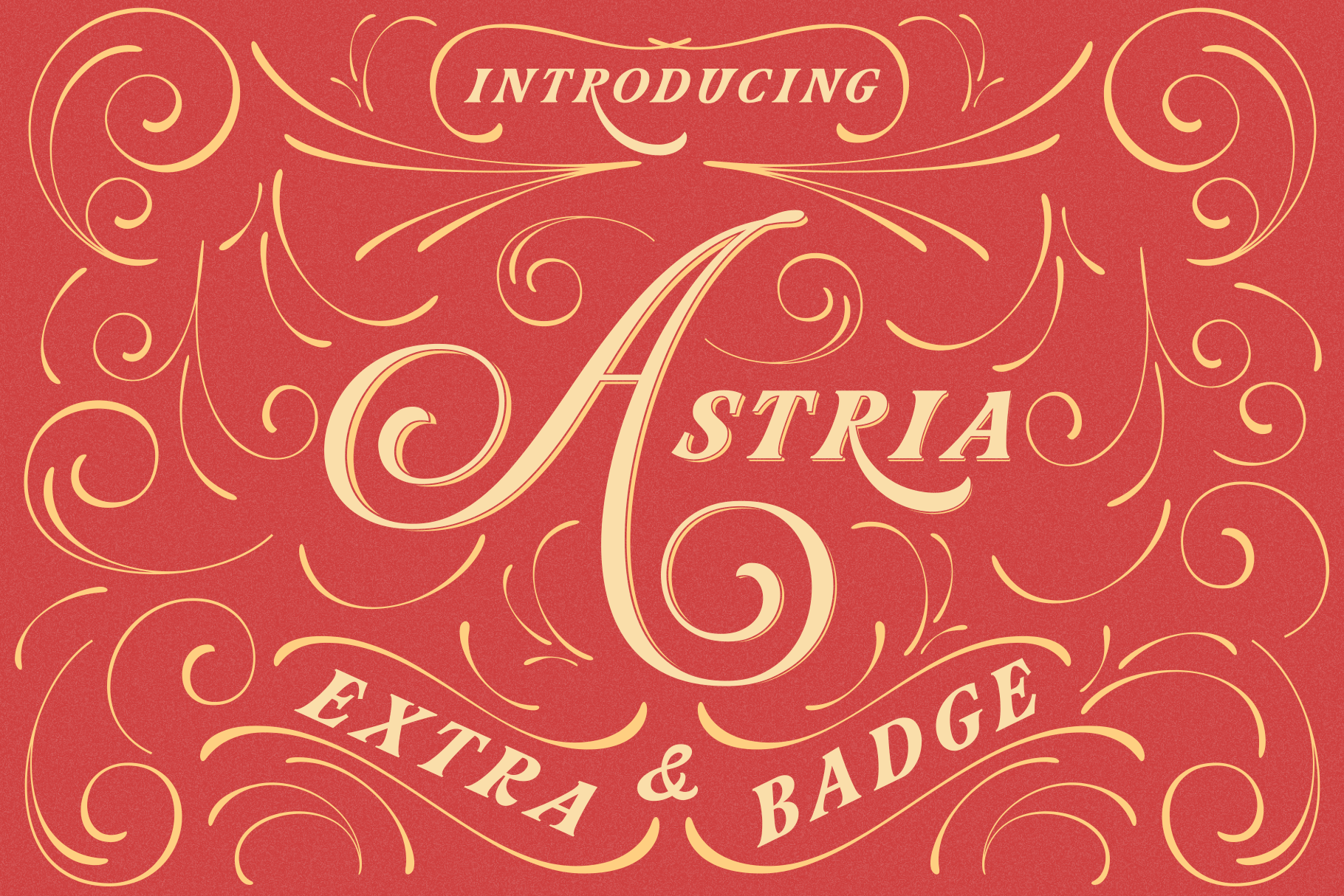
Astria – Fancy Typeface
Your search for the perfect alphabet font is over! Astria is a lavish and fashionable font. Astria is a typeface inspired by classic taste and fashion with extreme capital letters. The fonts are suitable to make a design choice for books, magazines, packaging, branding, signage, and more other creative projects. Astria comes with uppercase, lowercase, numerals, punctuations and so many variations on each character include OpenType alternates. Designing with Astria fonts is so fun, make your friends and family love it!
Astria features:
- A full set of upper & lowercase characters
- Multilingual symbols